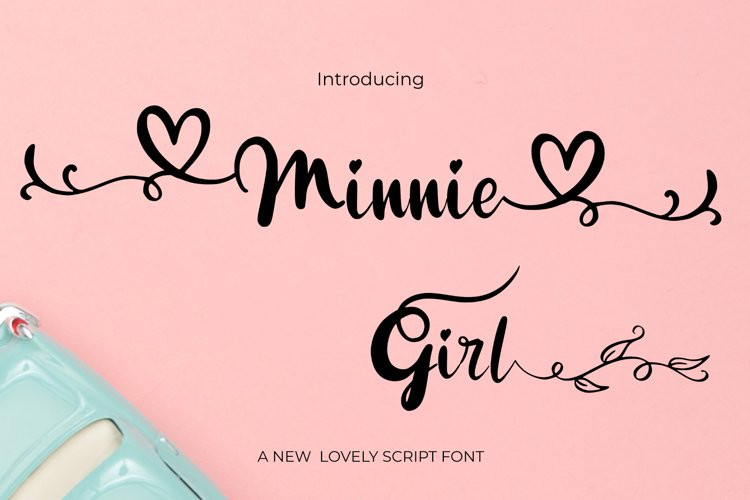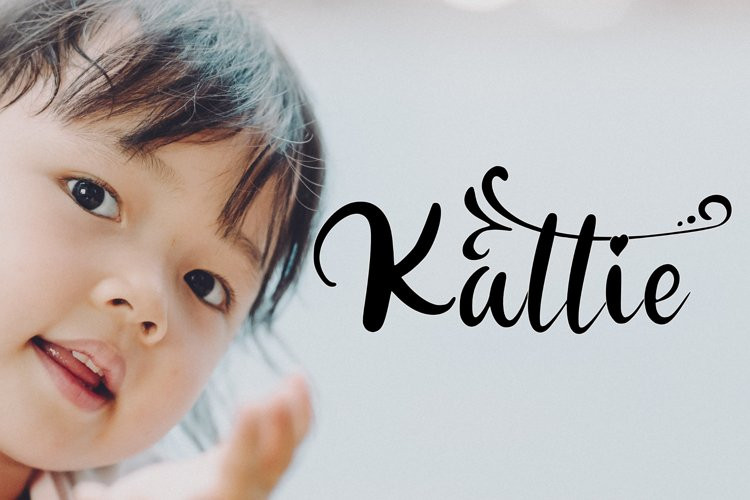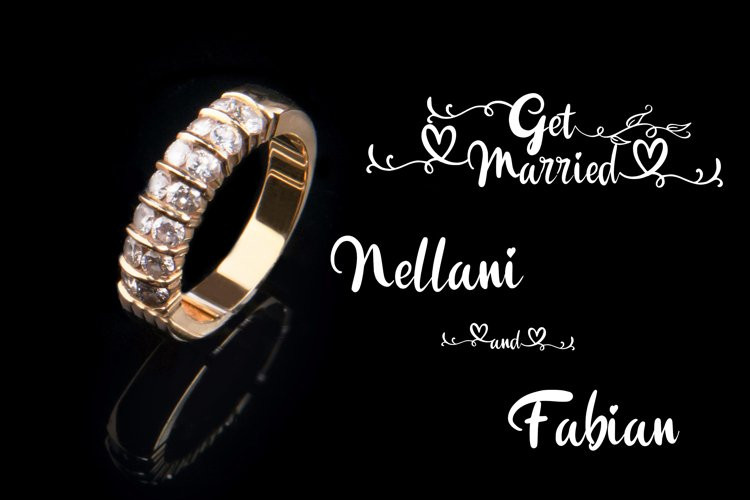
Minnie Font
Minnie FontMinnie lovely font. This font was designed by handwriting, and it has a modern and unique forms of calligraphy, the writing style is very natural.